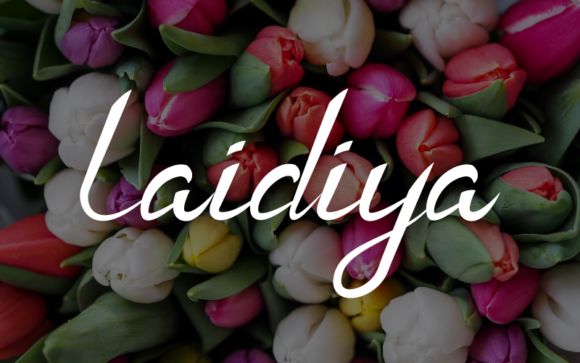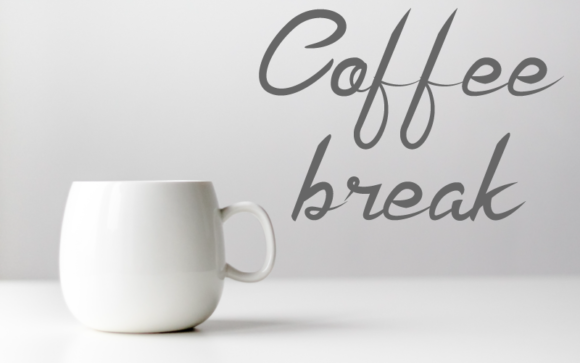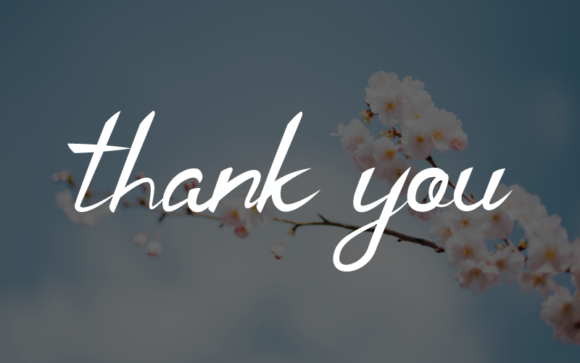
Laidiya Font
About Laidiya Font
Laidiya is is a gorgeous, flowing handwritten font. Its relaxed style and its well balanced characters make this font incredibly versatile, fitting a wide pool of contexts, both formal and non-formal.